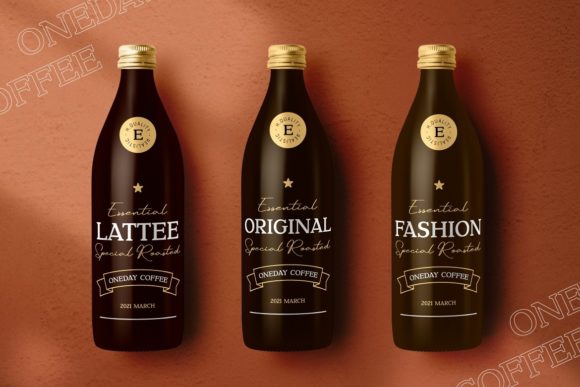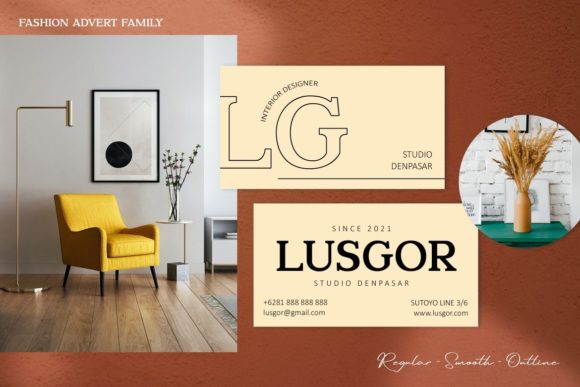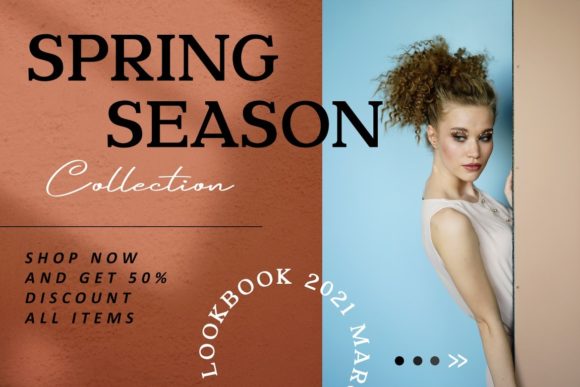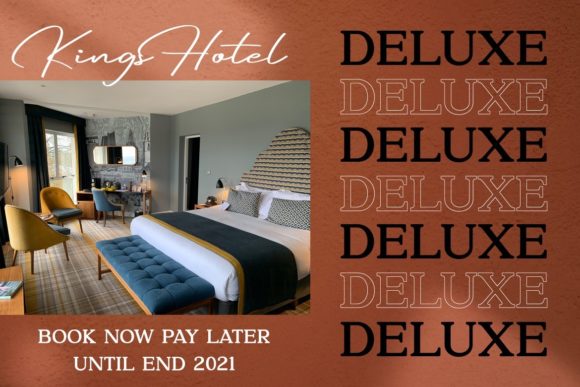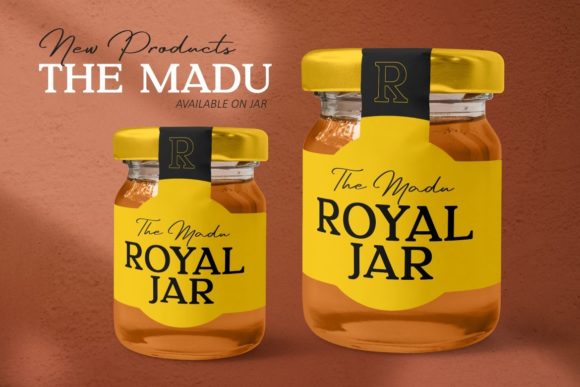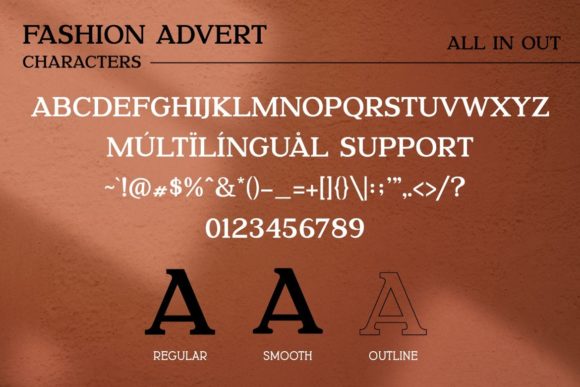
The Ultimate Fashion Advert Font Guide: Elevate Your Designs with Style
I’ll never forget the time I was working on a fashion brand’s logo design project, and I was struggling to find the perfect font. The client wanted something bold, yet elegant; something that would make their brand stand out in a crowded market. After hours of searching, I stumbled upon the Fashion Advert font, and it was love at first sight! 💕
This cool, bold, and assertive serif font has been a game-changer for my designs, and I’m excited to share its awesomeness with you. In this article, we’ll dive into the world of Fashion Advert, exploring its features, how to use it, and some amazing alternatives.
An Honest Review of Fashion Advert Font
What I Love About Fashion Advert ✨
- ✅ Versatility: Fashion Advert is an incredibly versatile font, suitable for a wide range of design projects, from fashion branding to advertising and more.
- ✅ Bold and Assertive: This font makes a statement, with its bold and assertive serif style, perfect for headlines and titles.
- ✅ Elegant and Sophisticated: Despite its boldness, Fashion Advert exudes elegance and sophistication, making it perfect for high-end fashion brands.
- ✅ Easy to Read: The font’s clear and readable design ensures that your message gets across, even at smaller font sizes.
While Fashion Advert is an amazing font, there are a few minor quirks to be aware of:
- ⚠️ Limited OpenType Features: Fashion Advert has some OpenType features, but it’s not as extensive as some other fonts.
- ⚠️ Not Suitable for Body Text: Due to its bold nature, Fashion Advert is best used for headlines and titles, rather than body text.
The Backstory of Fashion Advert Font
Fashion Advert was designed with the fashion industry in mind. Its creator, a talented type designer, wanted to craft a font that would capture the essence of high-end fashion: bold, elegant, and sophisticated. With its unique blend of classic and modern elements, Fashion Advert has become a go-to font for designers and brands looking to make a statement.
Q: What is the best use for Fashion Advert font?
A: Fashion Advert is best used for headlines, titles, and other design elements where you want to make a bold statement.
Q: Can I use Fashion Advert for body text?
A: While Fashion Advert is a beautiful font, it’s not ideal for body text due to its bold nature. Instead, use it for headings and titles, and pair it with a complementary font for body text.